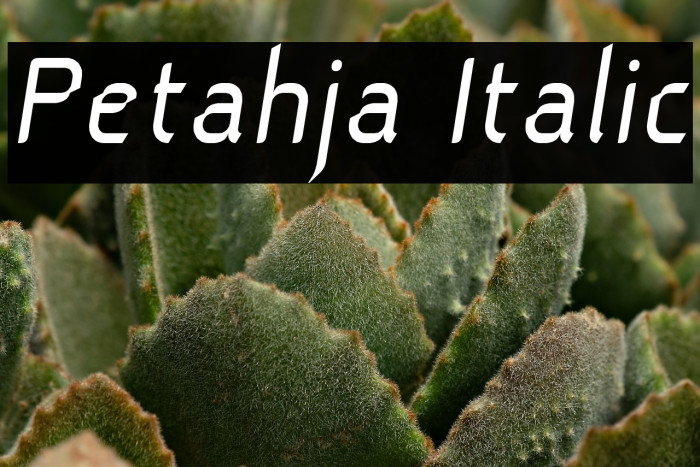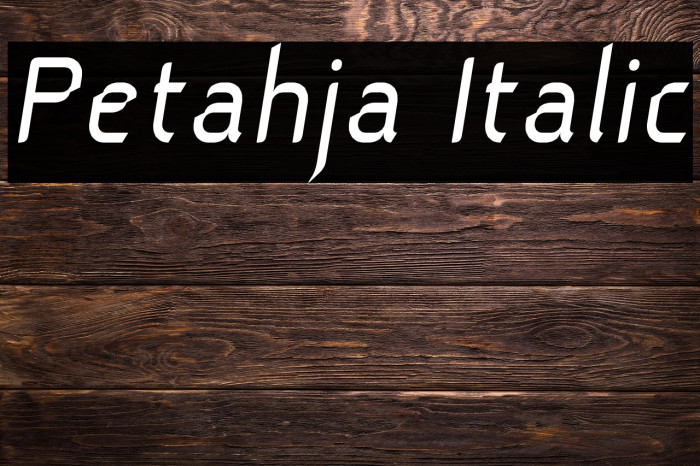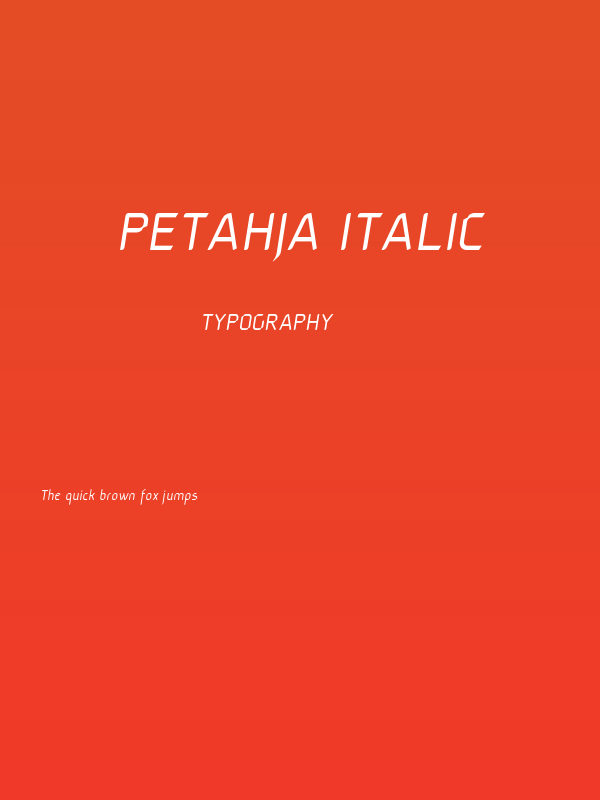
Petahja Italic Font
Petahja Italic Description
This font exhibits a modern and sleek design with a distinct italic style. The characters are slightly slanted, giving a sense of motion and dynamism. The strokes are consistent in width, providing a uniform appearance across all characters. The uppercase letters are bold and assertive, while the lowercase letters maintain a smooth and flowing form. The numbers are clear and easy to read, with a slight angularity that complements the overall style. Special characters are well-integrated, maintaining the font's cohesive look. This font is versatile, suitable for both digital and print media, offering a contemporary aesthetic that can enhance various design projects.